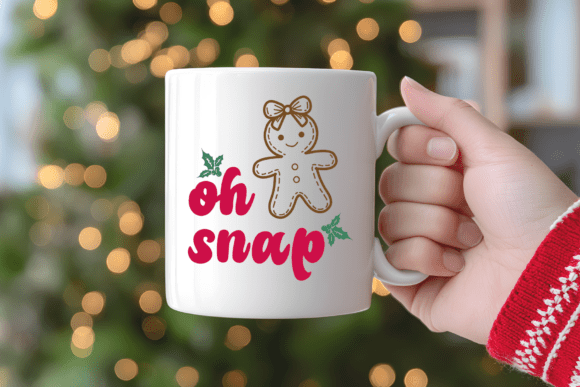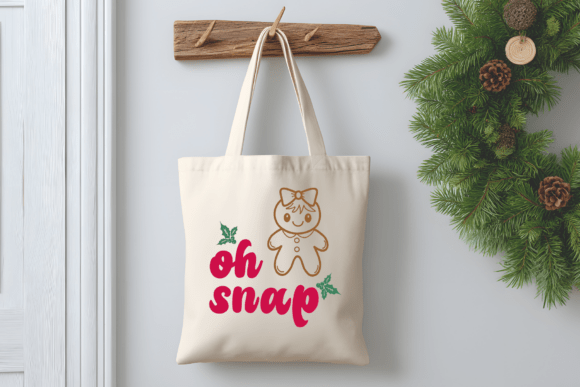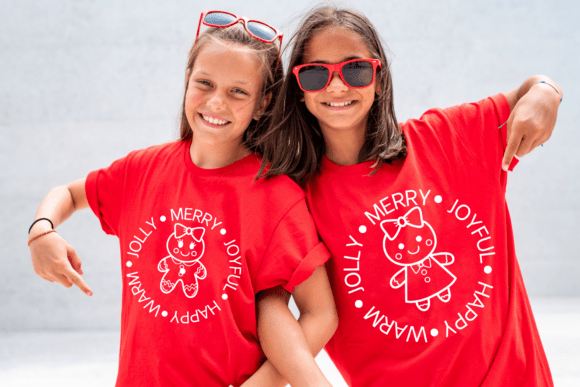
Gingerbread Girl Font
Gingerbread Girl Dingbat Font is a cute and playful collection of gingerbread cookie girls, perfect for kids’ Christmas projects. Add a sweet festive touch to your cards, crafts, toys, and stickers. Each adorable cookie character brings holiday cheer and joy to your creative designs!